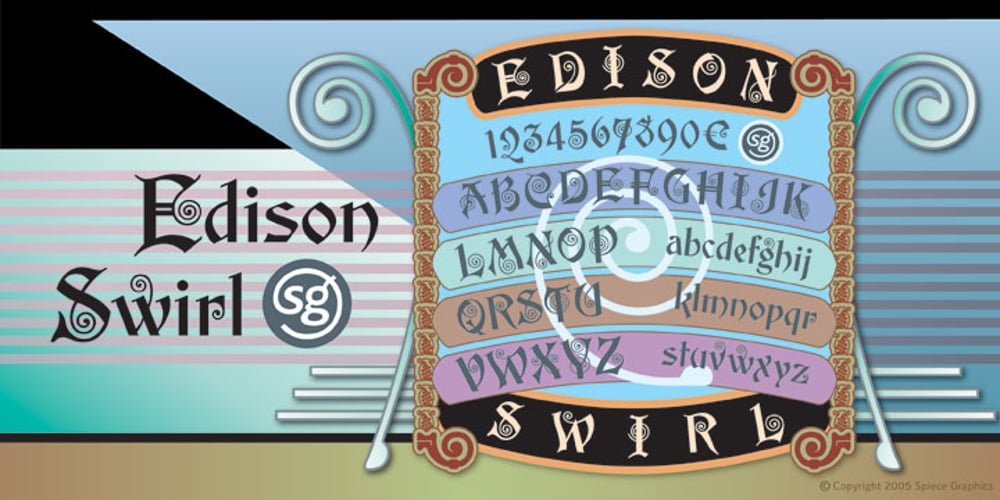
Edison Swirl SG Font Family was designed by Hermann Ihlenburg and published by Spiece Graphics. Edison Swirl SG contains 1 styles and family package options. Edison Swirl, with its terminals majestically looping and twirling in a circular fashion, quickly takes us back to the Victorian era of type. This unusual fancy face, which dates back to the early 1900s, distinguishes itself by employing splayed M & N caps. Some letterforms also contain double cross-strokes for added interest. Edison Swirl is full of ornament and detail which creates a truly striking pattern of intrigue and delight. Edison Swirl is also available in the OpenType Std format. Some new characters have been added to this OpenType version. Advanced features currently work in Adobe Creative Suite InDesign, Creative Suite Illustrator, and Quark XPress 7. Check for OpenType advanced feature support in other applications as it gradually becomes available with upgrades.